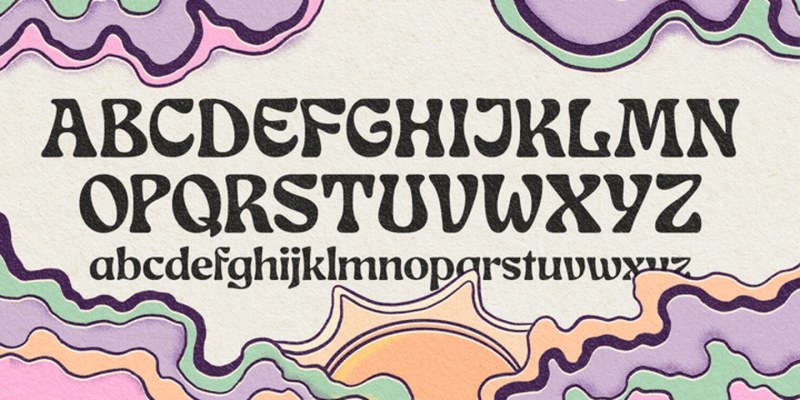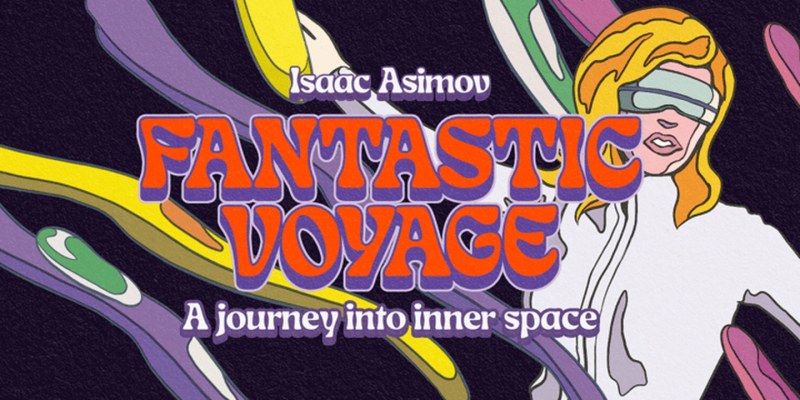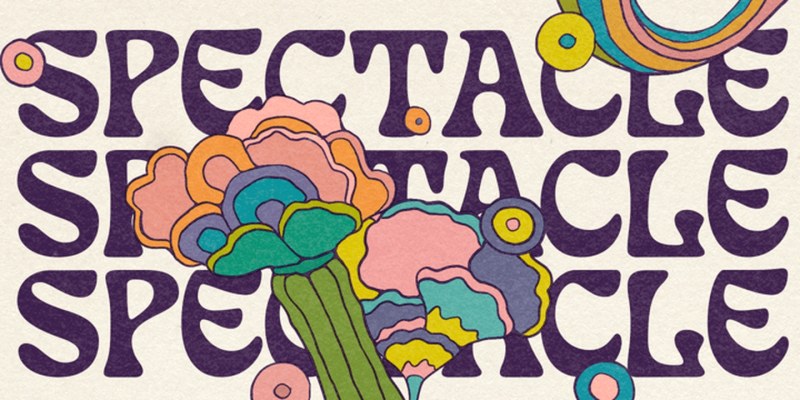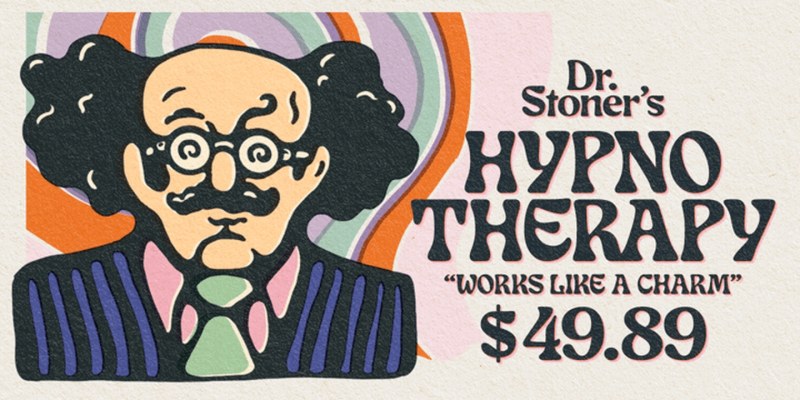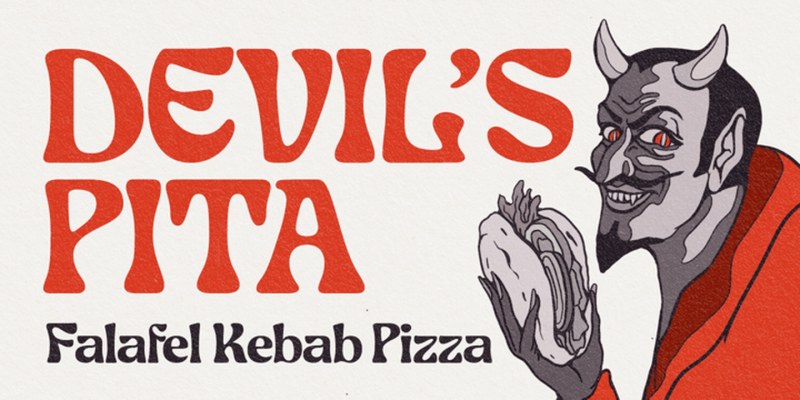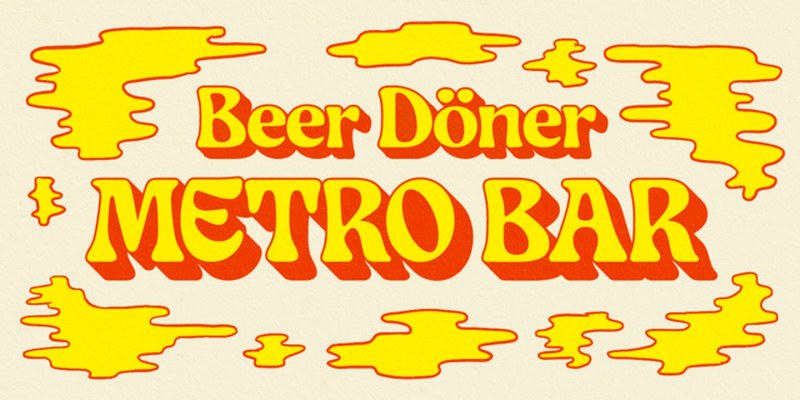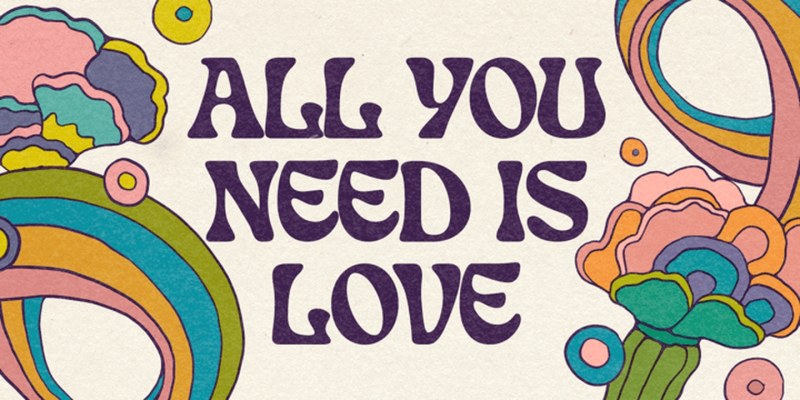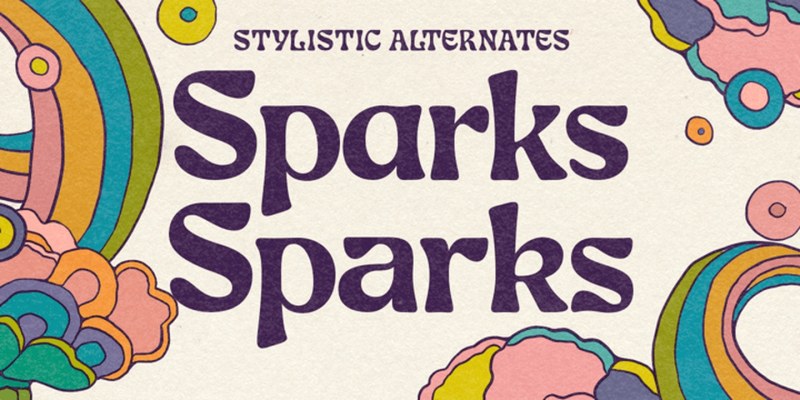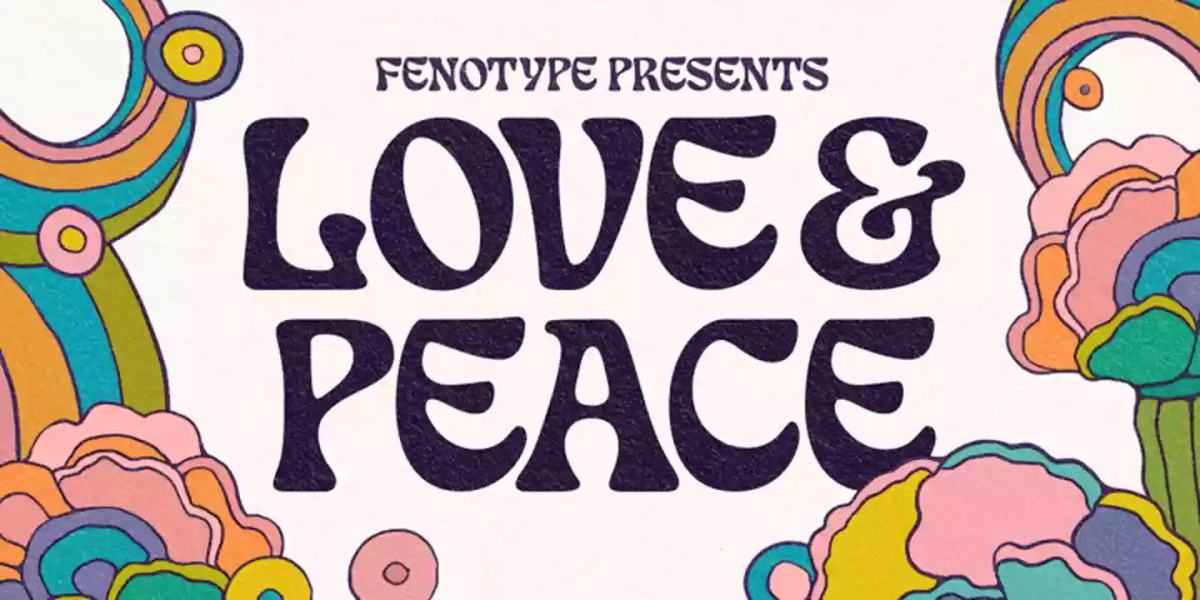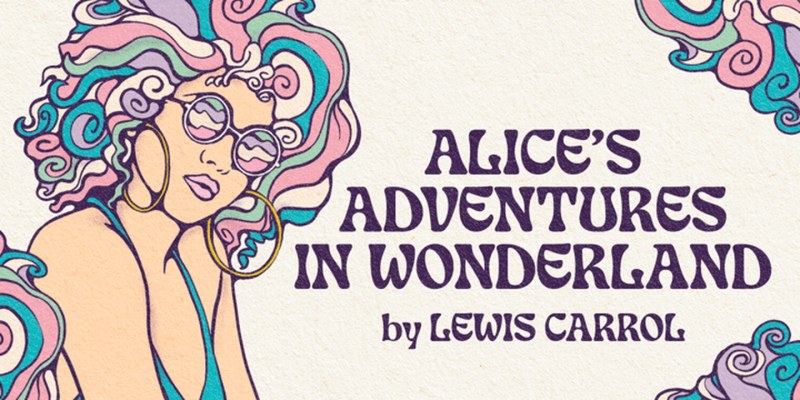
Love And Peace Font
Love and Peace is an Art Nouveau style font by Penotype Foundry, which takes its inspiration from Eckmann-Schrift by Otto Eckmann in 1900. The font is greater for party posters and specially psychedelic covers as it gives similar look with twisted words. It comes with great features that include Contextual Alternates and Standard Ligatures to prevent characters from colliding. Moreover, it also has additional stylish alternates for lowercase a, k, r and s, which makes your designs look awesome. Another feature this typeface has is the swash alternates for ampersand and dollar sign. This font comes in OTF file format.